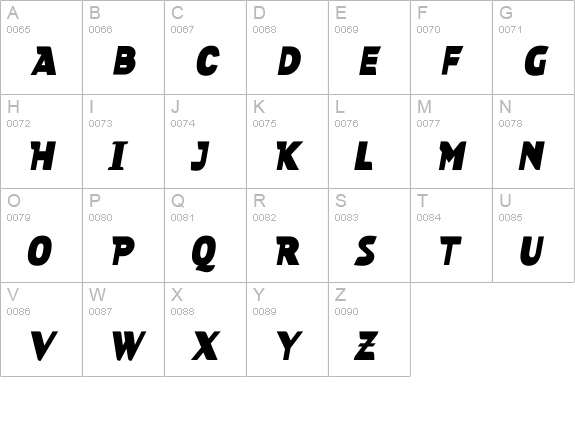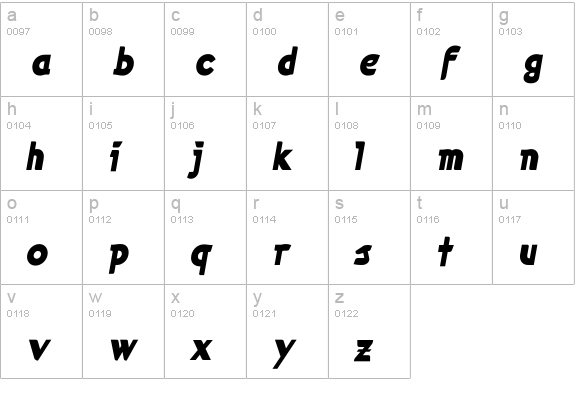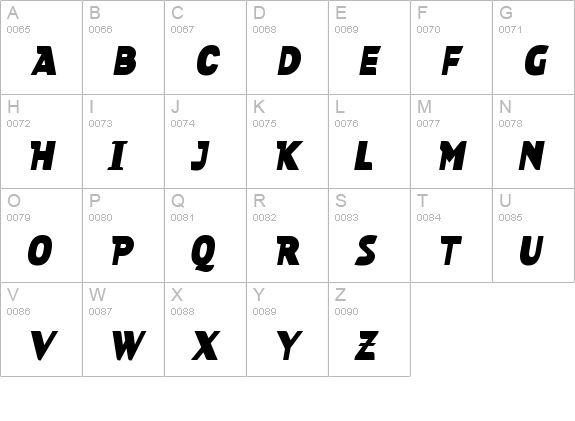
Cuban-BlackItalic font is a bold and stylish typeface that exudes elegance and sophistication. Its sleek design and slanted italic style make it perfect for adding a touch of flair to any project. The sharp edges and clean lines of this font give it a modern and contemporary look that is sure to make a statement. Best of all, Cuban-BlackItalic font is available for free download at FontsMarket.com. Whether you're working on a professional design project or simply looking to add some personality to your personal creations, this font is a versatile choice that will not disappoint. Download it today and elevate your designs with the sleek and stylish Cuban-BlackItalic font.